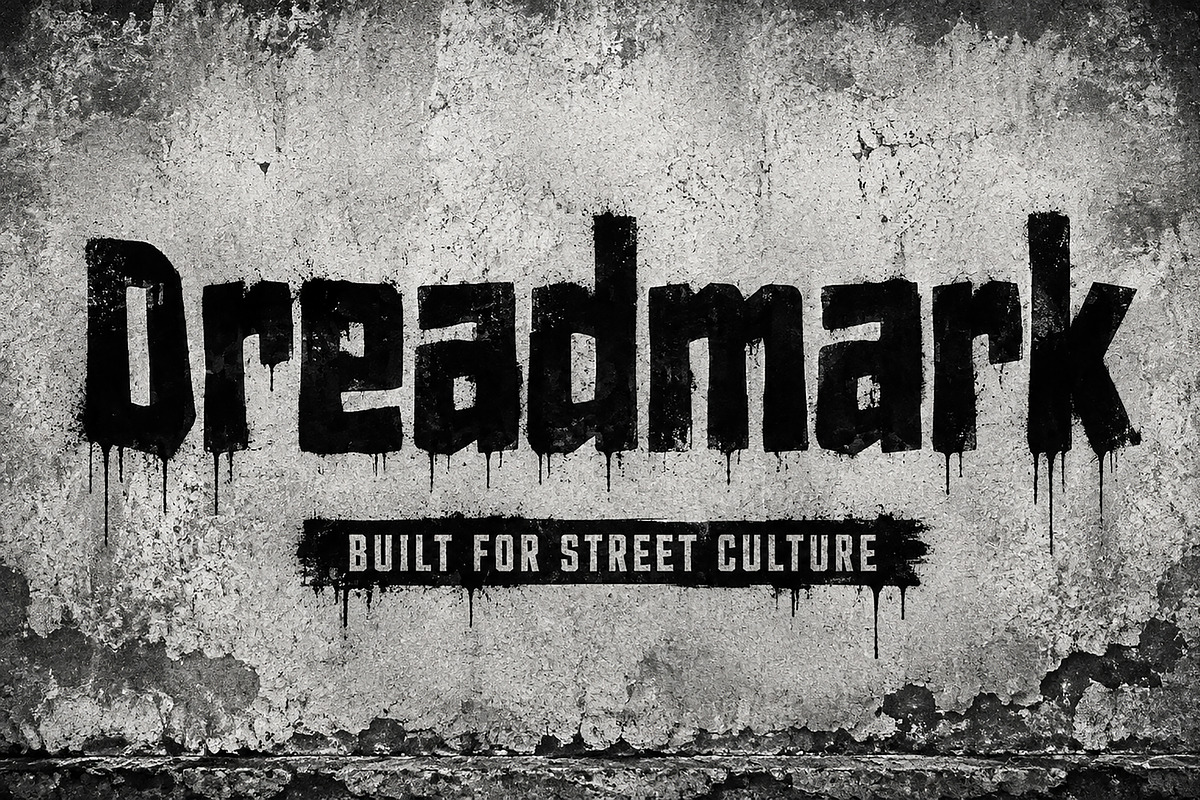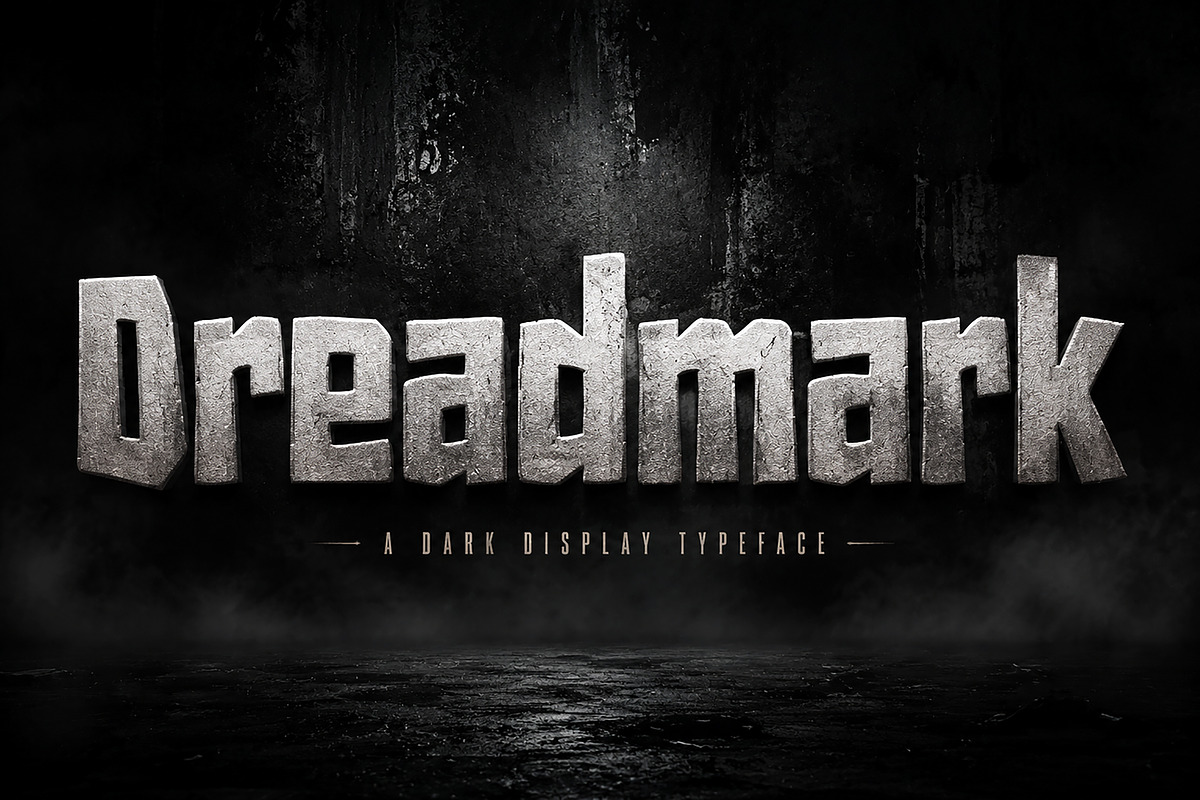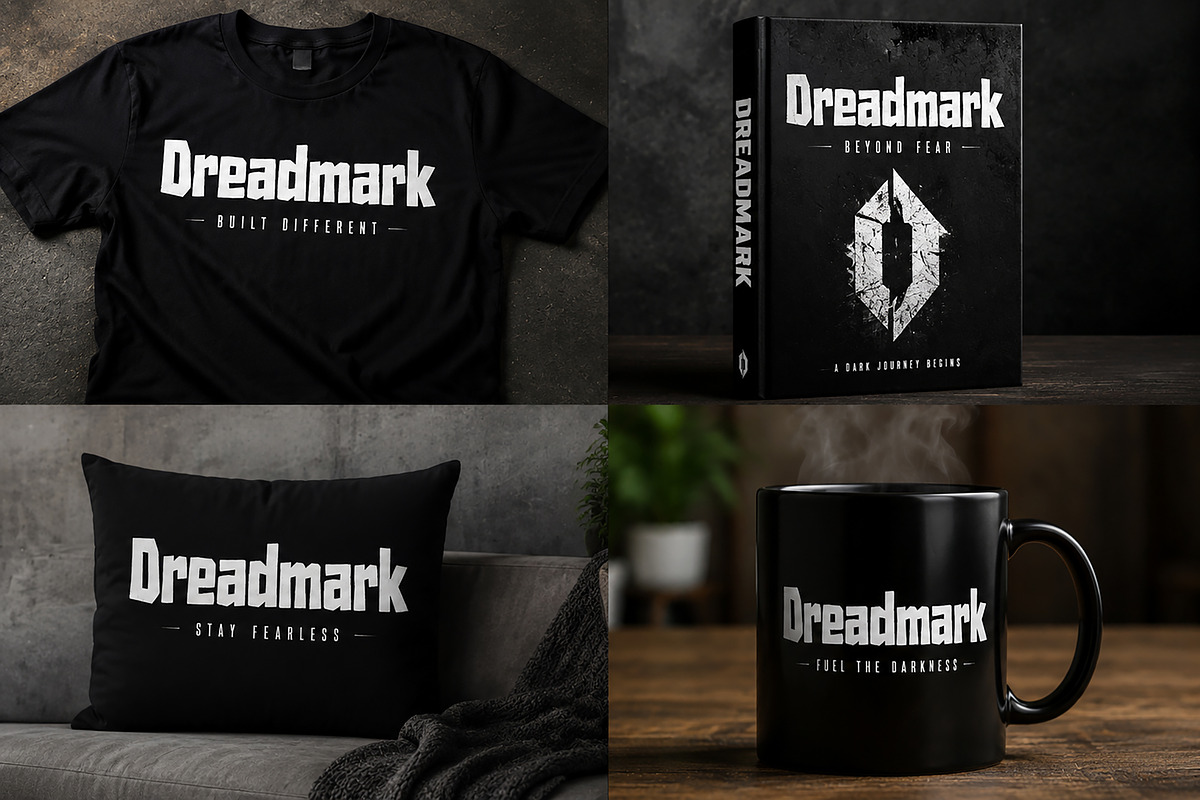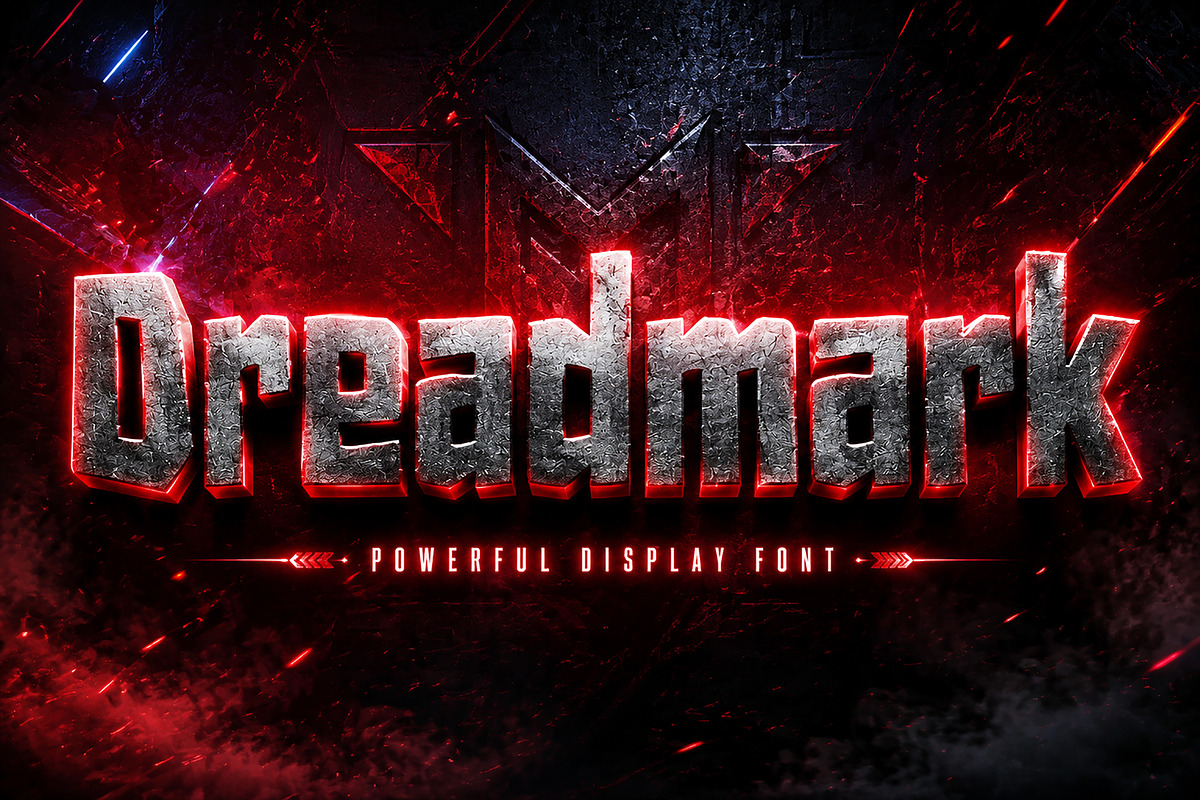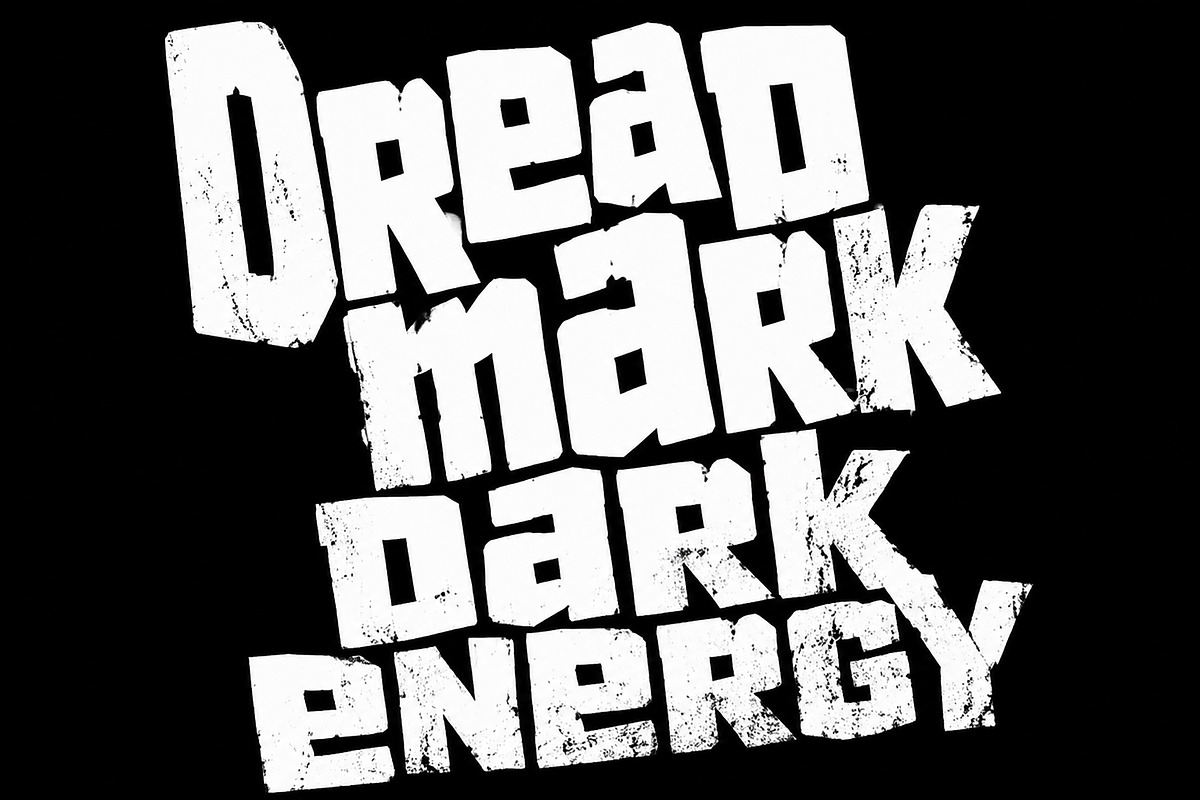
Dreadmark – Bold Horror Display
Dreadmark – Bold Horror Display Typeface
Dreadmark is a powerful bold display typeface designed for projects that need a dark, aggressive, and unforgettable visual impact. With its heavy geometric structure and strong personality, Dreadmark brings a dramatic presence to every design.
Perfect for horror posters, movie titles, gaming logos, esports branding, streetwear designs, album covers, merchandise, YouTube thumbnails, tattoos, and modern dark-themed branding projects.
The bold and intense letterforms make Dreadmark an ideal choice for designers looking to create a powerful atmosphere with a premium underground aesthetic.
✔ Bold horror-inspired display style
✔ Strong and impactful letter design
✔ Perfect for branding and headline use
✔ Suitable for both digital and print projects
✔ Great for posters, logos, apparel, and merchandise
• Horror & thriller posters
• Movie title designs
• Gaming & esports logos
• Streetwear branding
• T-shirt designs
• Album covers
• YouTube channel branding
• Event posters
• Packaging design
• Creative typography projects
Create bold, dark, and powerful designs with Dreadmark — a typeface made to leave a lasting impression.